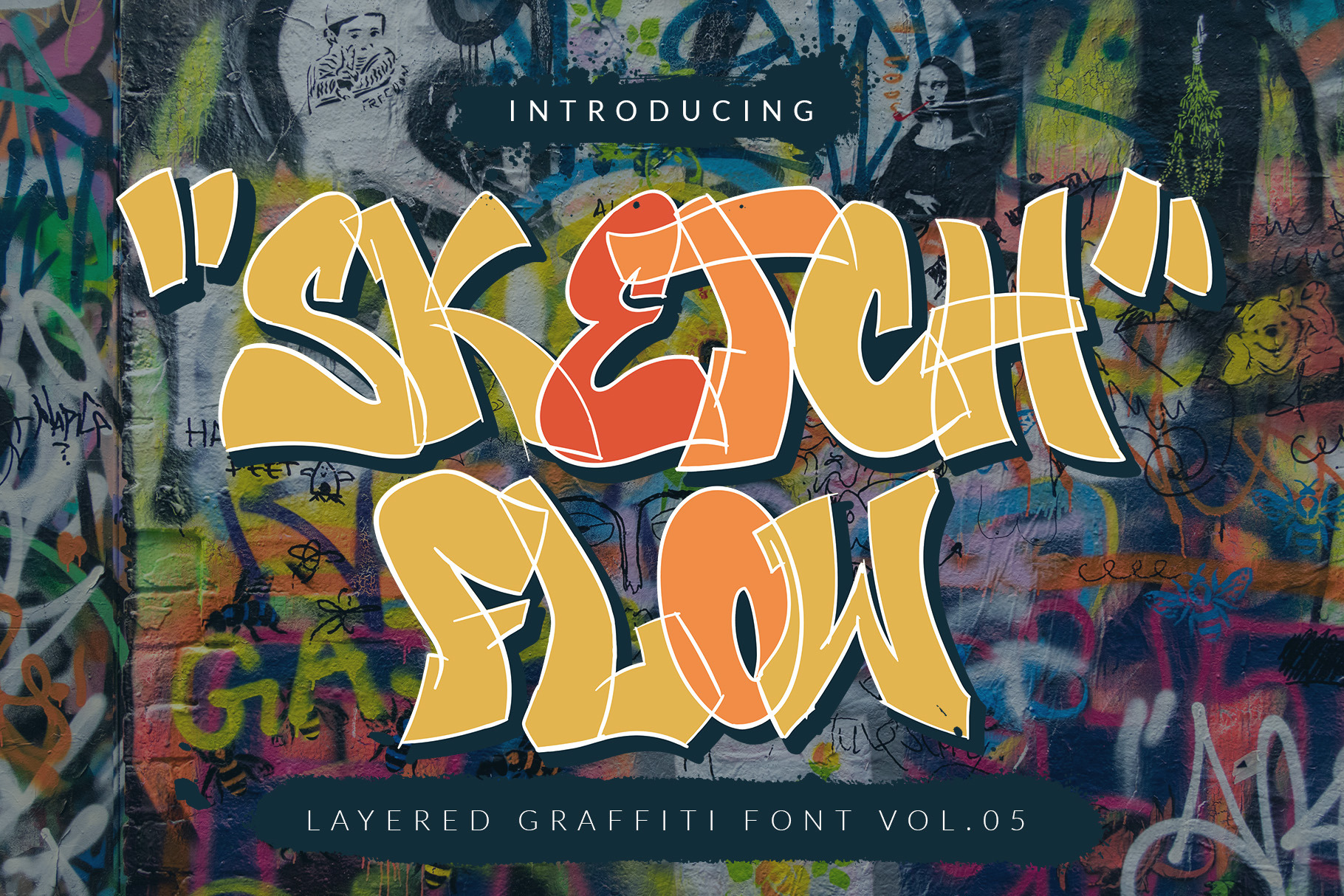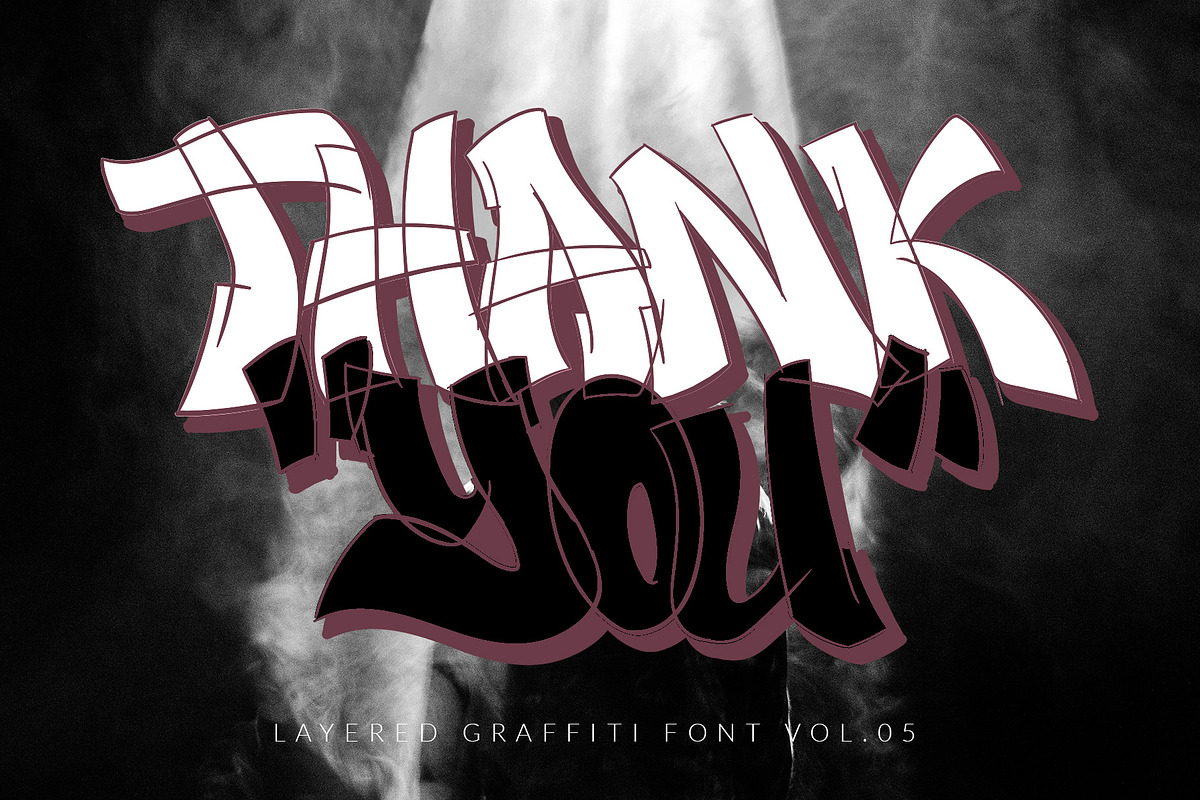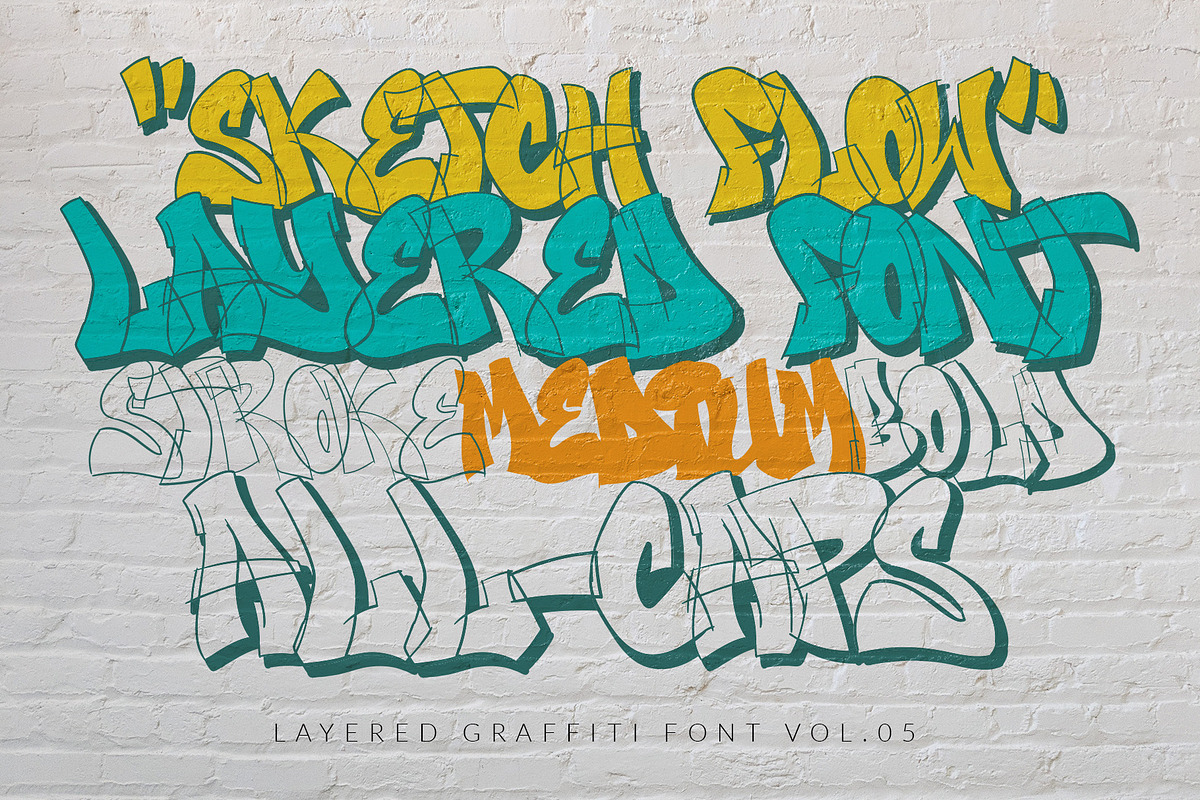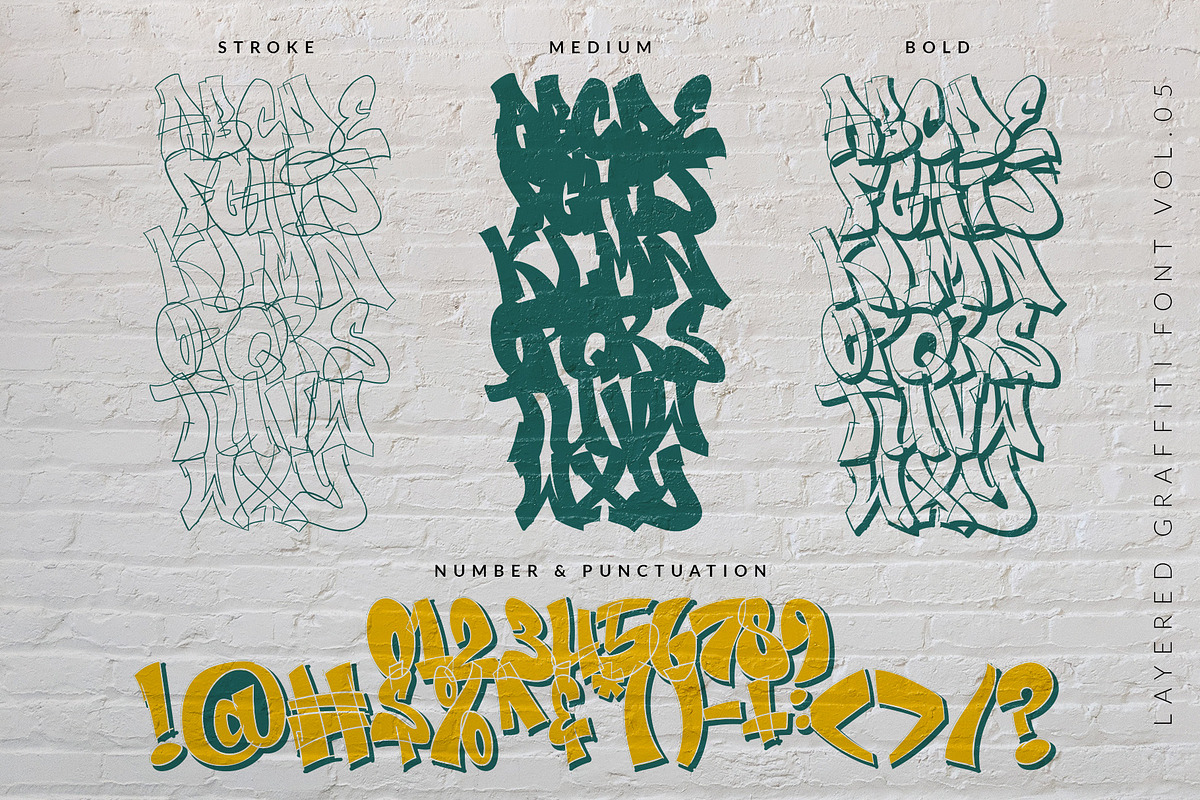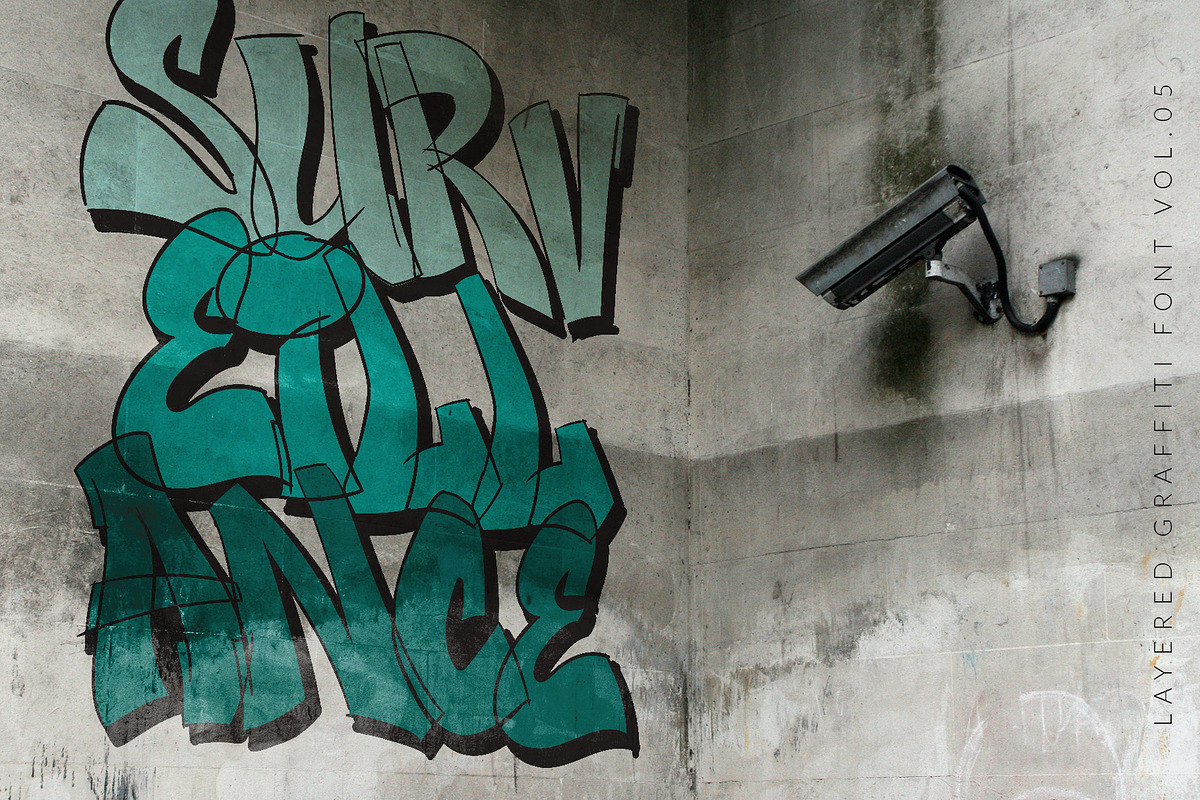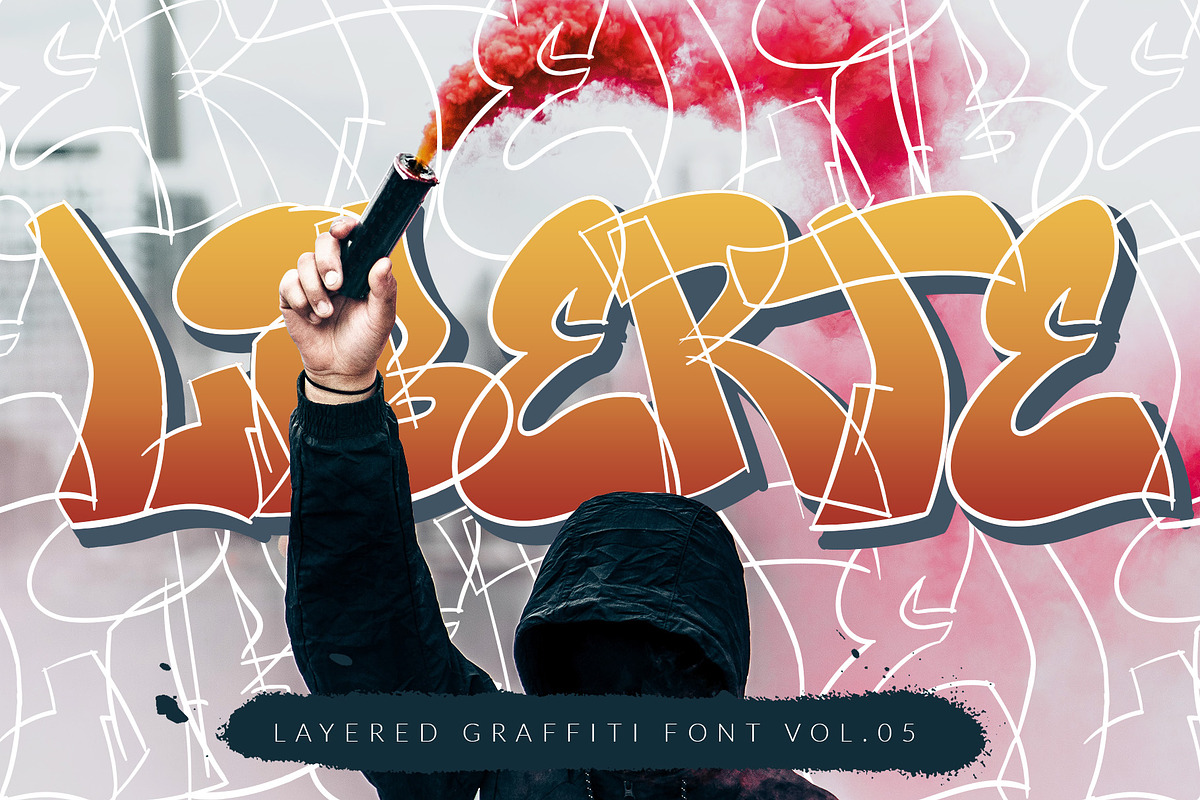
Sketch Flow - Layered Graffiti Font
SketchFlow is a layered graffiti fonts, inspired by street visual art and want to apply in the form of fonts, this is the result of experiments combining graffiti sketch visuals, there are 3 fonts in 1 family (Stroke, Medium, Bold) all in one capital glyphs where when combined from the three fonts into one unit will make your urban design project easy and fast, or even make you an instant graffiti artist.
- Stroke: for graffiti outline
- Medium: for the part of color in graffiti
- Bold : for shadows on graffiti